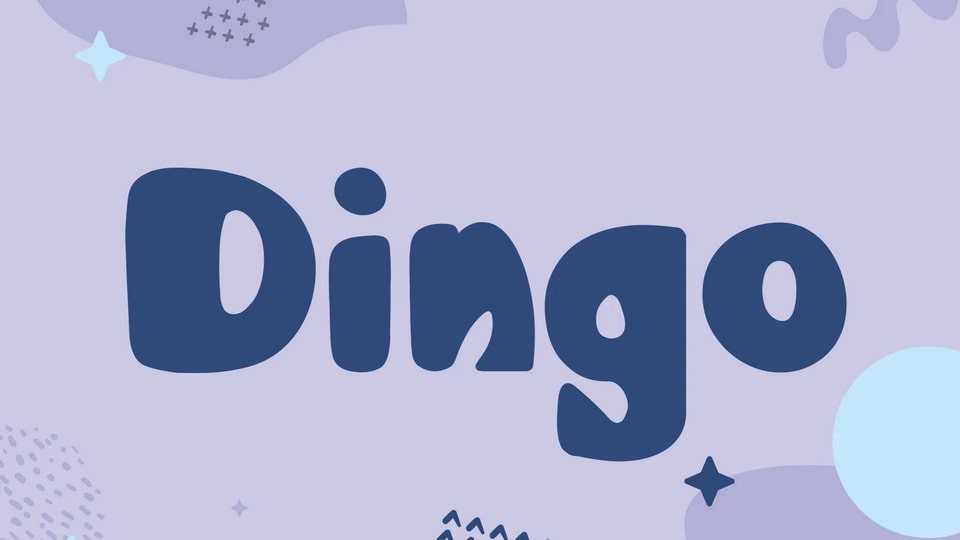
Download Dingo font, a fun and playful typeface designs for children related projects. Dingo is friendly and inviting which makes it ideal for design projects that require a carefree vibe.
Designer: HipFonts